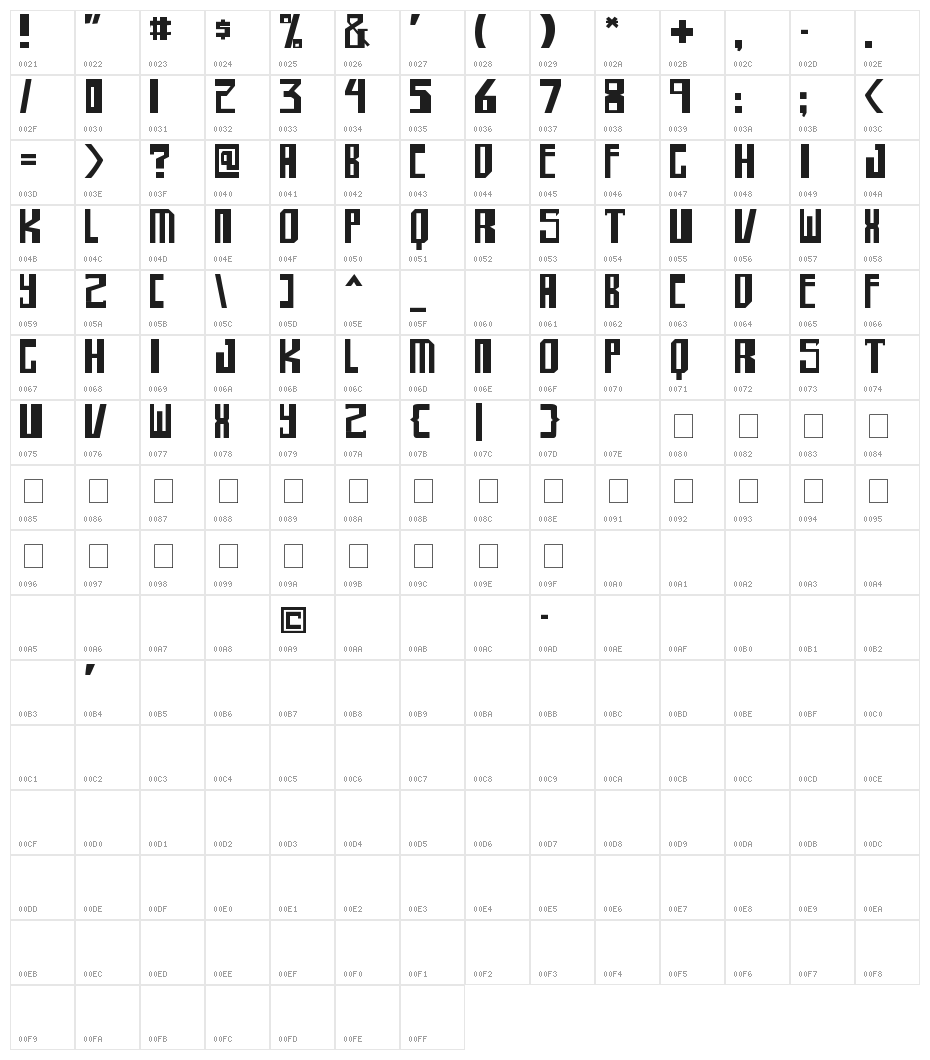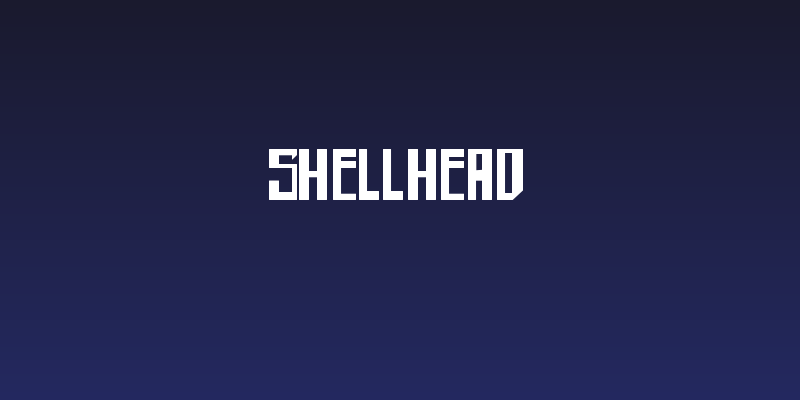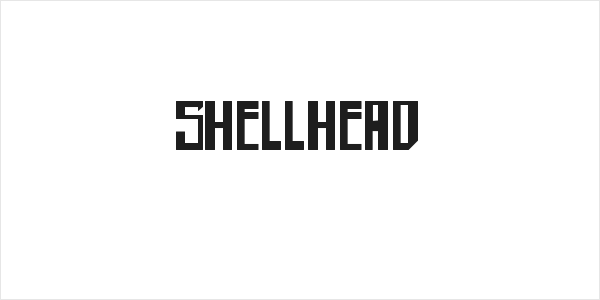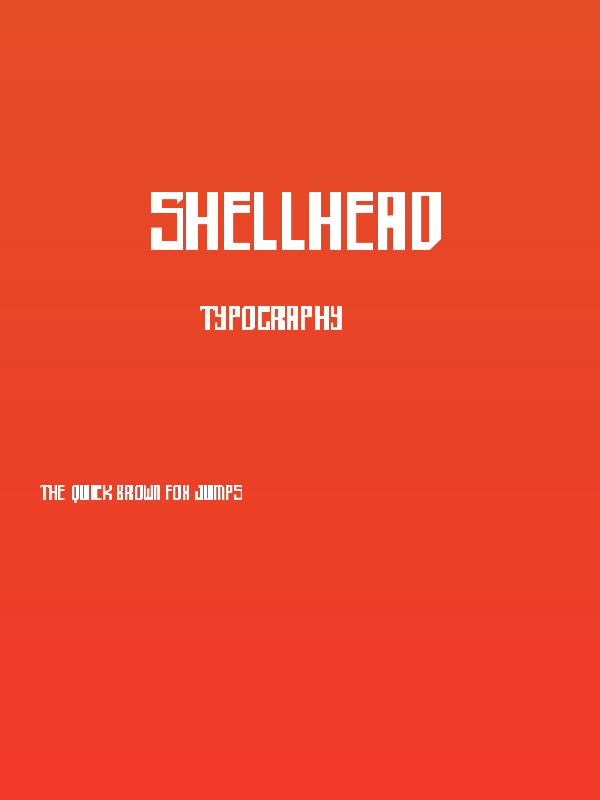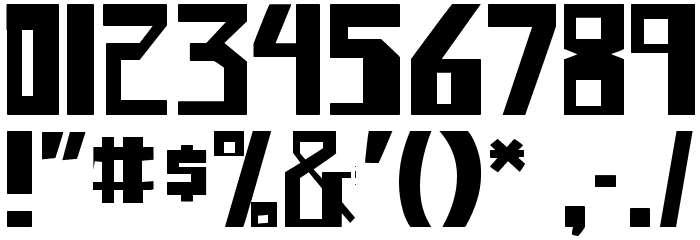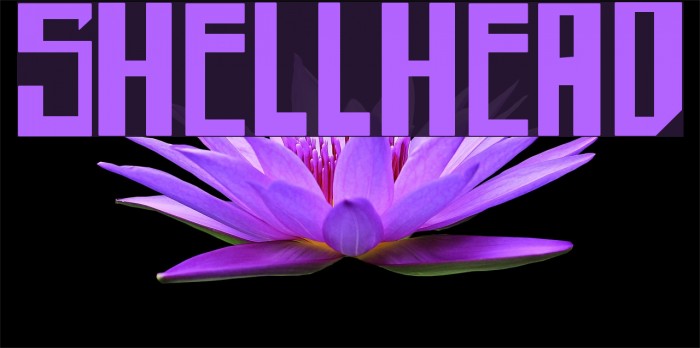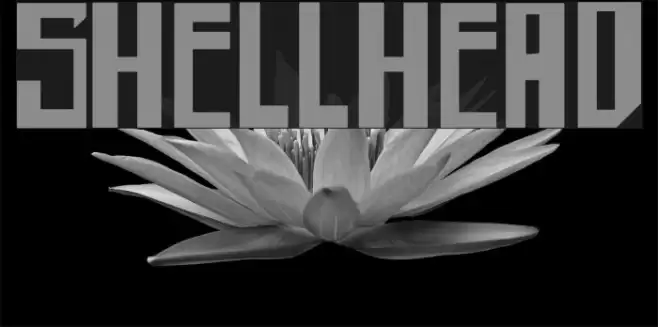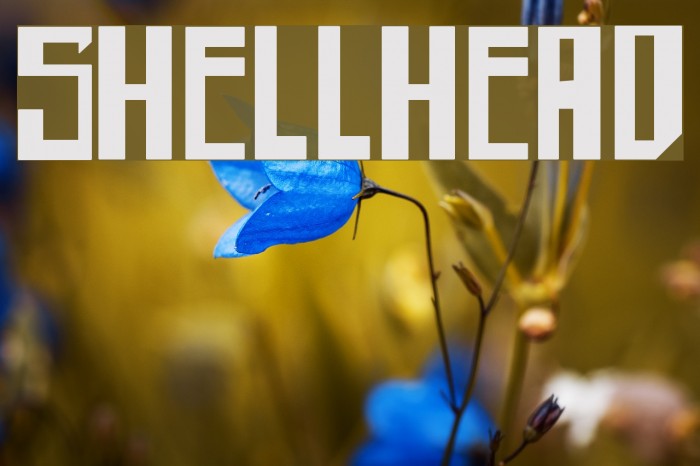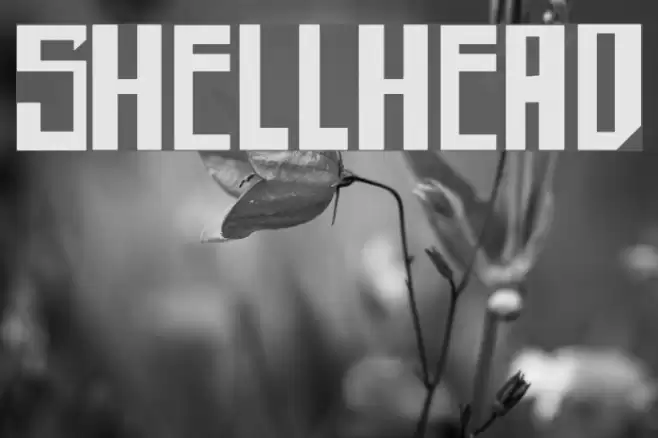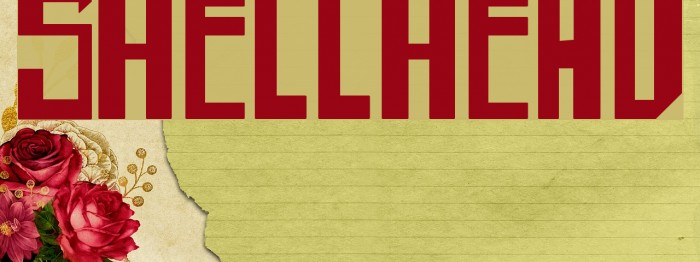
shellhead Font
shellhead Description
This font features a bold and geometric design with sharp angles and a strong presence. The characters are constructed with thick, uniform strokes, creating a sense of solidity and impact. The uppercase letters exhibit a blocky, industrial style, while the lowercase letters maintain the same robust aesthetic. Numbers and special characters are designed to match the overall boldness, ensuring consistency across all glyphs. The font's distinct style makes it ideal for attention-grabbing headlines and logos, where a modern and assertive look is desired.
| Proposed Projects | Ideal for branding, posters, headlines, and any design requiring a bold, modern touch. |